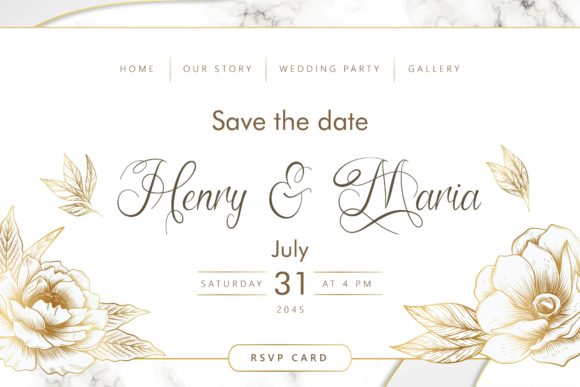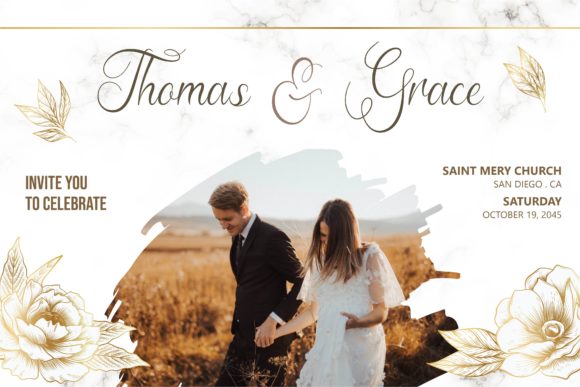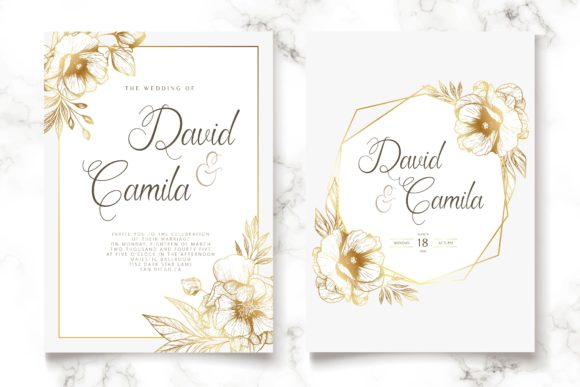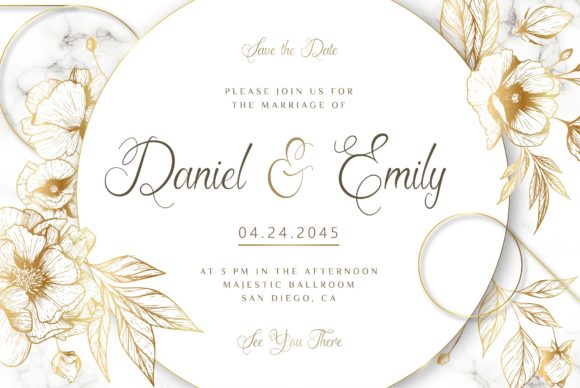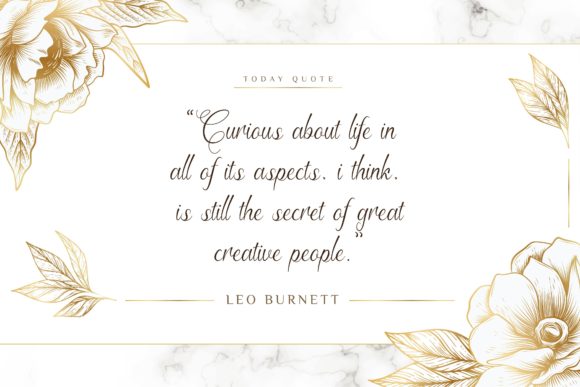
About Vanthyca Font
Vanthyca is an elegant script font. Fall for its ravishing style and use it to create gorgeous wedding invitations, beautiful stationary art, eye-catching social media posts, and much more. It will add a luxury spark to any design project you wish to create!